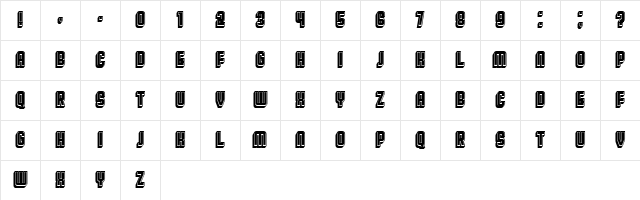
Broadway Flat 3D Filled Regular
Broadway Flat 3D Filled Family
Broadway Flat 3D Filled Regular
Design Context for Broadway Flat 3D Filled
Broadway Flat 3D Filled is a composed and adaptable typeface that performs quietly and consistently across a wide range of design contexts.
Pro Tip: Use Broadway Flat 3D Filled in both headline and body roles to test its range before committing to a single application.